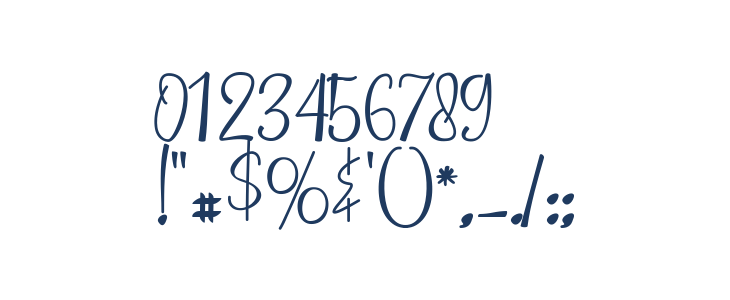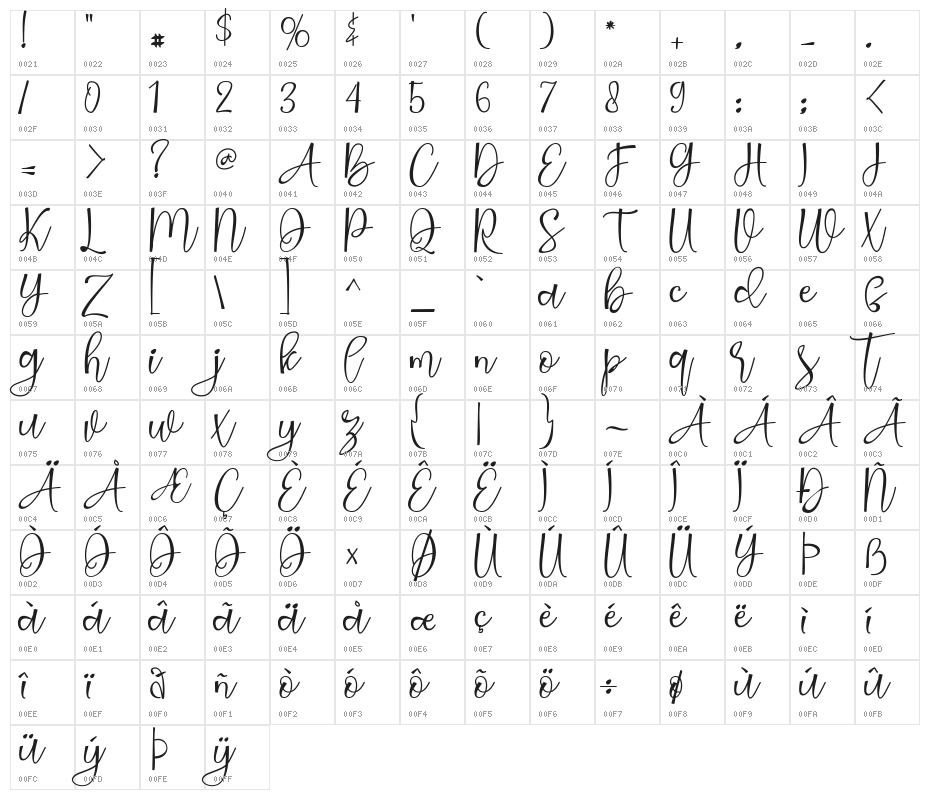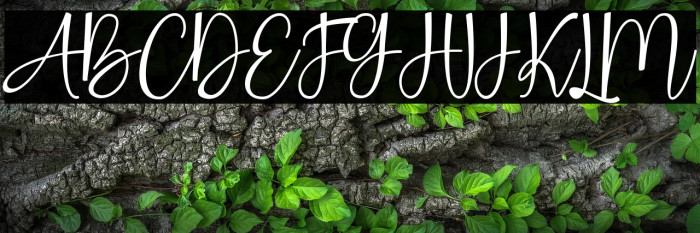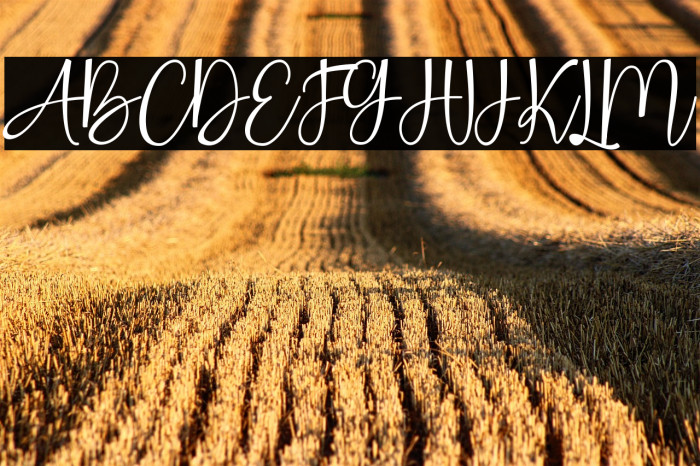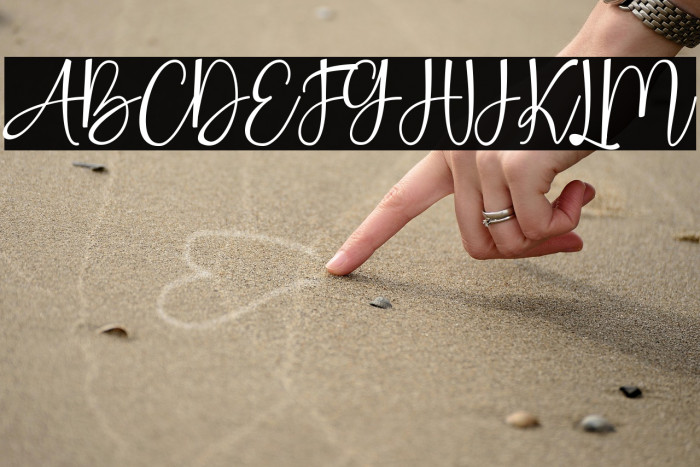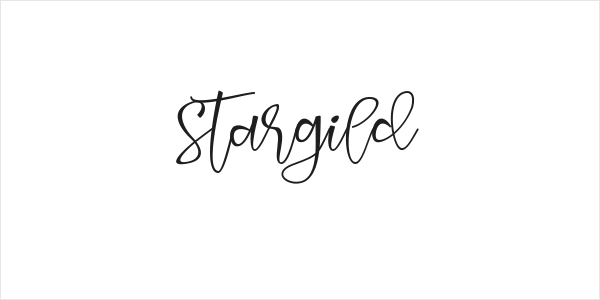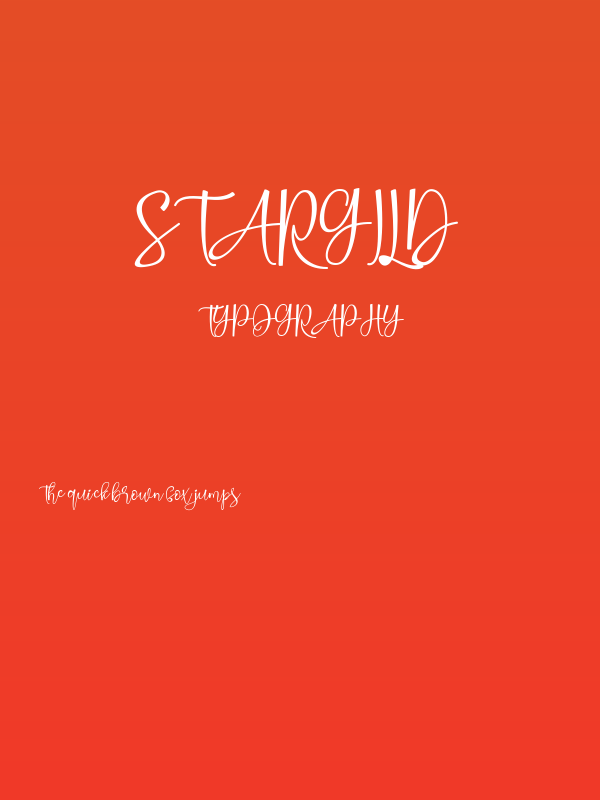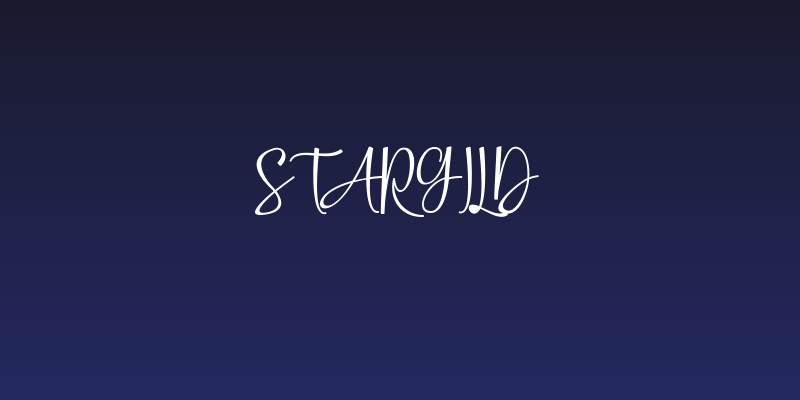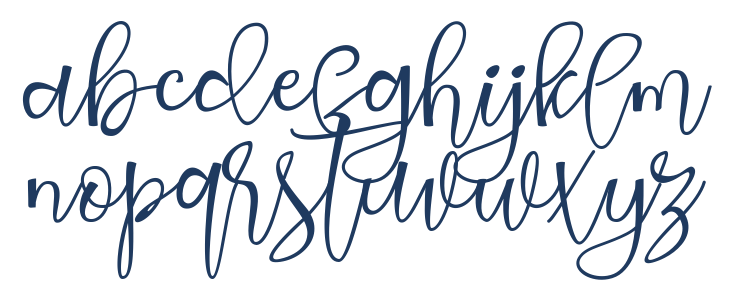
Stargild Font
Stargild Description
This font features a lively and dynamic script style with a handwritten appearance. The letters are elegantly connected, giving it a fluid and continuous flow. The uppercase characters are tall and slightly slanted, while the lowercase letters maintain a consistent rhythm with playful loops and curves. The numerals are distinct and maintain the same whimsical style, making them easily readable. Special characters are creatively designed, adding to the font's overall charm. This font exudes a sense of creativity and personal touch, making it suitable for projects that require a personal or artistic flair.
| Use Case | Logos, Invitations, Artistic projects |
| Proposed Projects | Ideal for wedding invitations, greeting cards, branding projects, and artistic designs. |